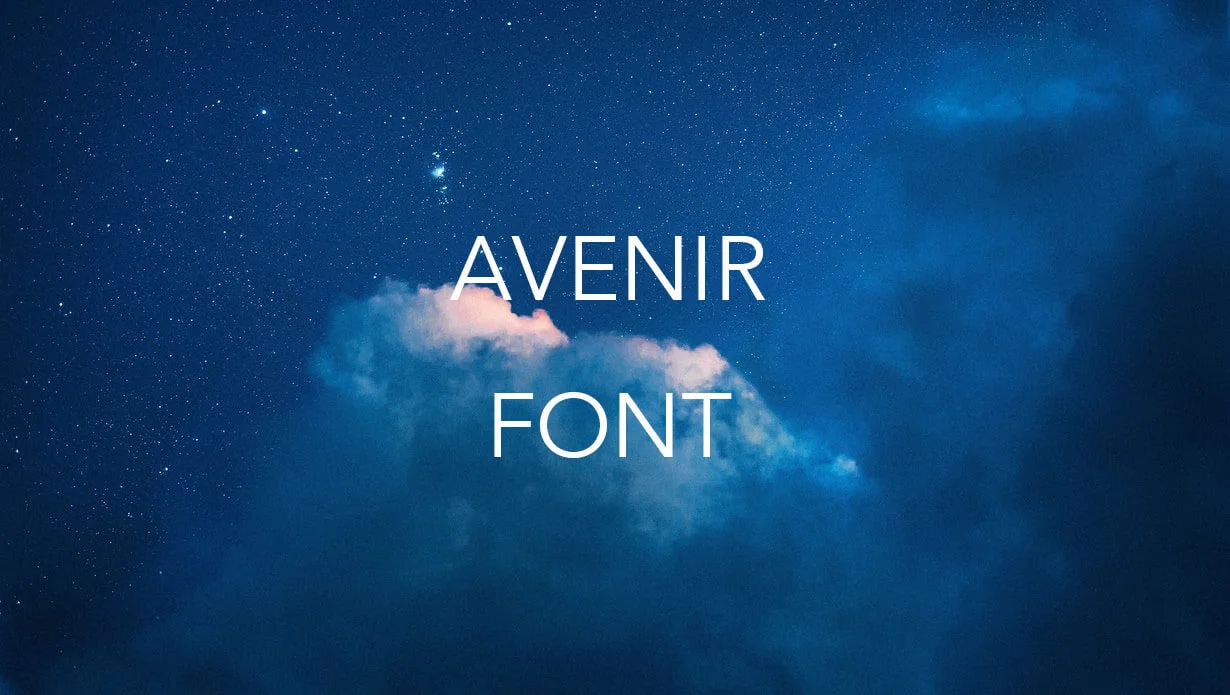
Avenir Font is a Sans-Serif typeface that was created by a Swiss designer, Adrian Frutiger, in 1987. Apart from this font, he is known for creating Universe and Frutiger fonts. However, the font was released by Mergenthaler Linotype Company in 1988 for public use. The font came into being by taking inspiration from the 1920s font, Futura Font.
It is considered one of the designer’s admirable works that comprise 3 weights, and each weight is of oblique and roman version. However, after sometimes the Avenir family expanded and reached 6 weights. To expand Avenir’s features and weights, a designer Akira Kobayashi further worked on this font and was named ‘Avenir Next’. The typeface has a pairing personality with a beautiful avenir next condensed font, so hands-on the font style and make something gorgeous.
Usage of Avenir Font
There is a long list where this font has been used since its release. In 2008, a university situated in North Carolina, Wake Forest University, made its primary font. Later it was used by Apple company for their Map App. Apart from Apple, many other mobile companies get their hands on this font for different purposes. A pair of Avenir font and avenir next font is the best choice to create beautiful designs
For advertisement and communication purpose, a railway company, ‘SNCF’ situated in France, use Avenir font. Furthermore, for the subscription purpose, this font was highlighted by Disney+. Because of being used in many memorable places, its importance kept on increasing, and today it is known to be one of the most used fonts.
Here you can have a look at how does it appear in letters, numbers, etc.
Name | Avenir Font |
Style | Geometric sans-serif, Humanist sans-serif |
Designer | Adrian Frutiger |
What Is the Avenir Font Used For?
It is used for various purposes, but mainly, if you want to emphasize a specific part or to head, then this font would be a great choice. It is a modern design, so it will go best for those websites where you want to give a modern touch.
Where Is Avenir Used?
It is mainly used in corporate brandings. For instance, in banking sectors, food brands, railway companies, etc. It is mainly used in the logos of these companies to attract the public.
Is Avenir a Good Font?
It is considered one of the most versatile fonts used for different purposes. Hence, it is surely one of the worth suing fonts.